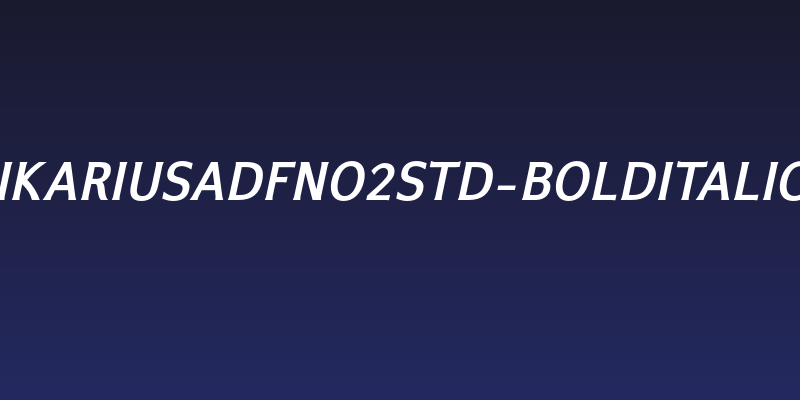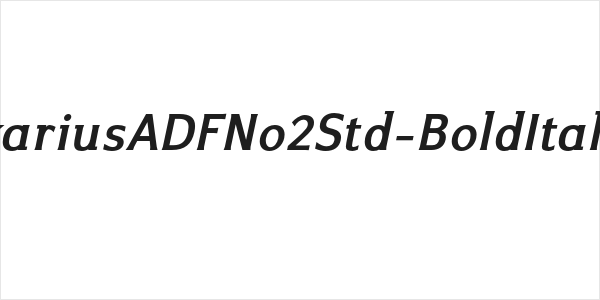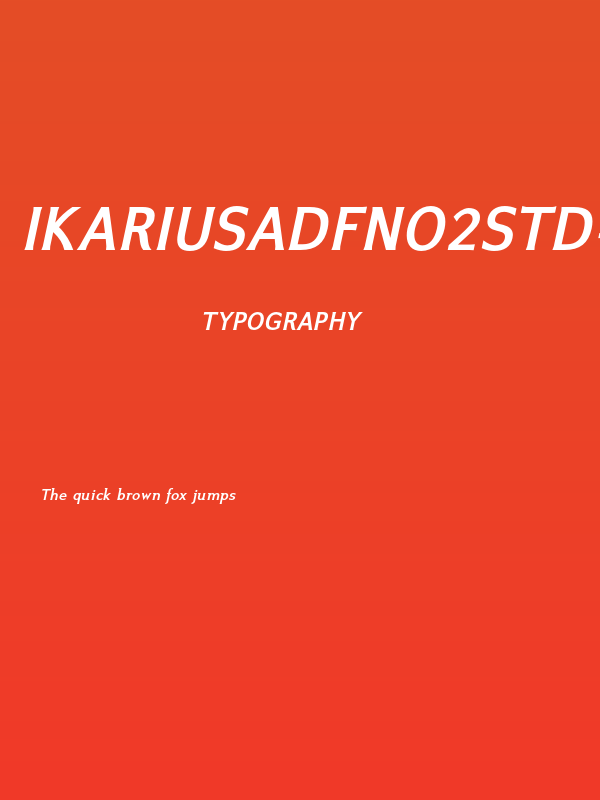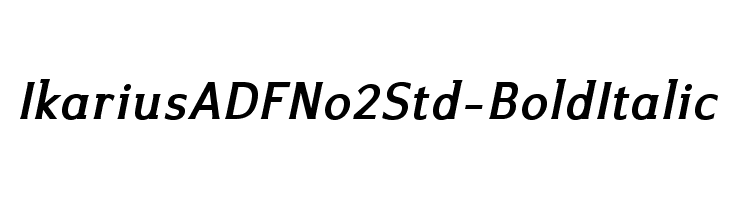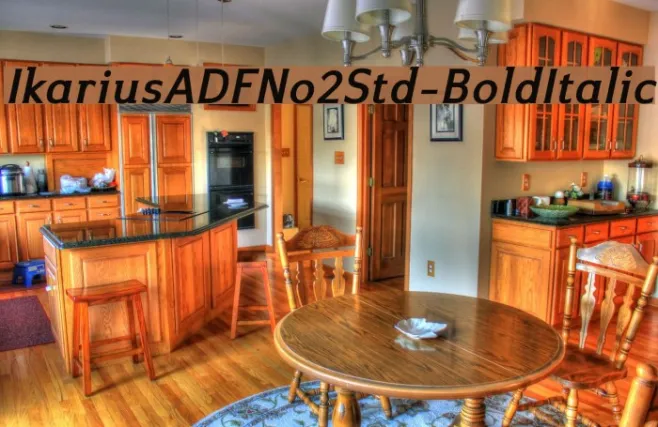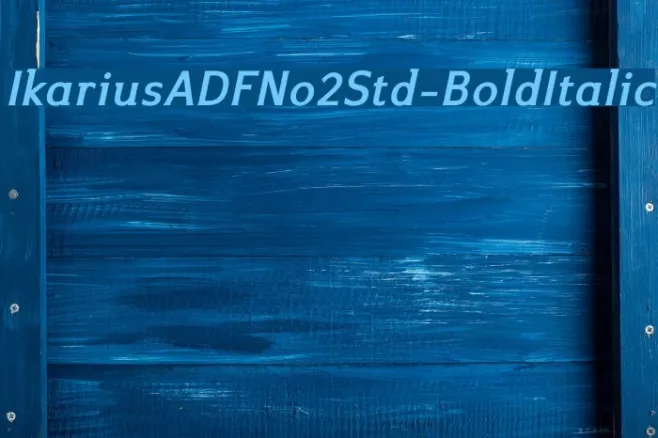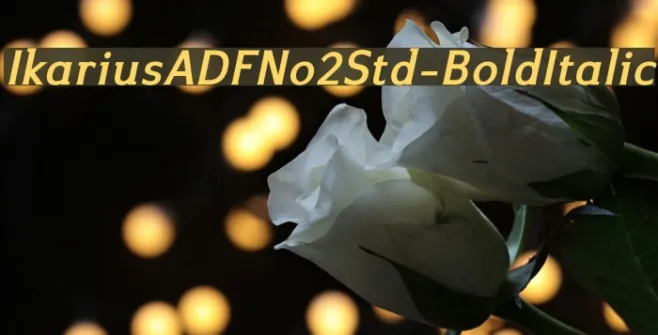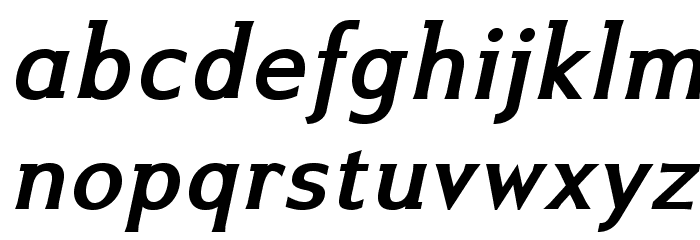
IkariusADFNo2Std-BoldItalic Font
IkariusADFNo2Std-BoldItalic Description
This font features a bold and italic style, characterized by its dynamic and forward-leaning posture. The uppercase letters are tall and commanding, while the lowercase letters maintain a consistent flow, enhancing readability. The numerals are robust and clear, making them suitable for various applications. Special characters are well-defined, adding versatility to the font. The overall design is modern and sleek, with a slight slant that adds a sense of motion and energy. This font is ideal for projects that require a strong visual impact while maintaining elegance.
| Use Case | Headlines, Logos, Branding |
| Proposed Projects | Ideal for branding, advertising, headlines, and editorial design. |